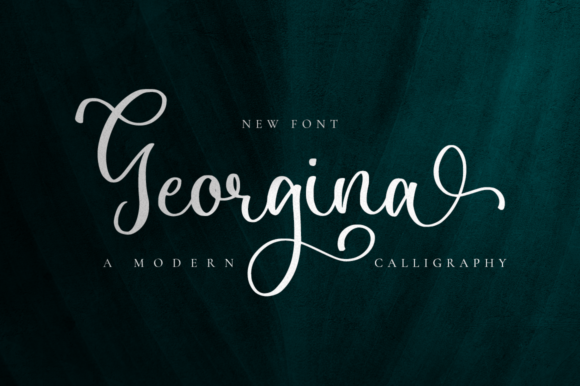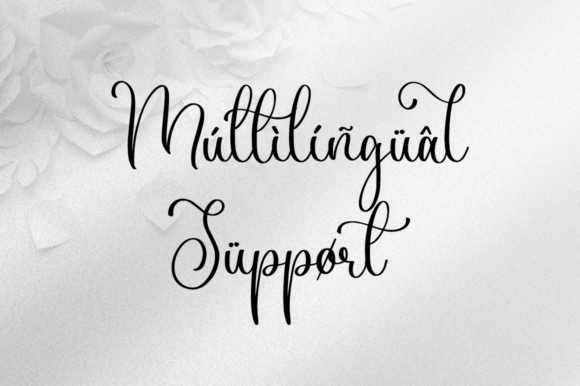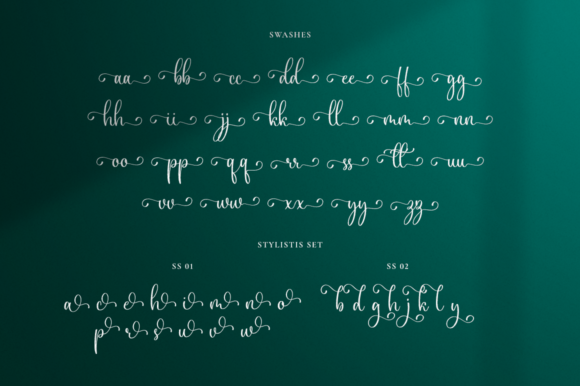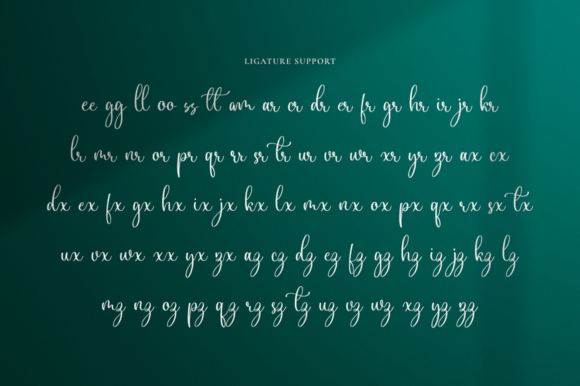
About Georgina Font
Georgina is a beautiful and light handwritten font with a unique feel and a stunning impact. It will add a luxury spark to any design project that you wish to create! Georgina is PUA encoded which means you can access all of the amazing glyphs and ligatures with ease!